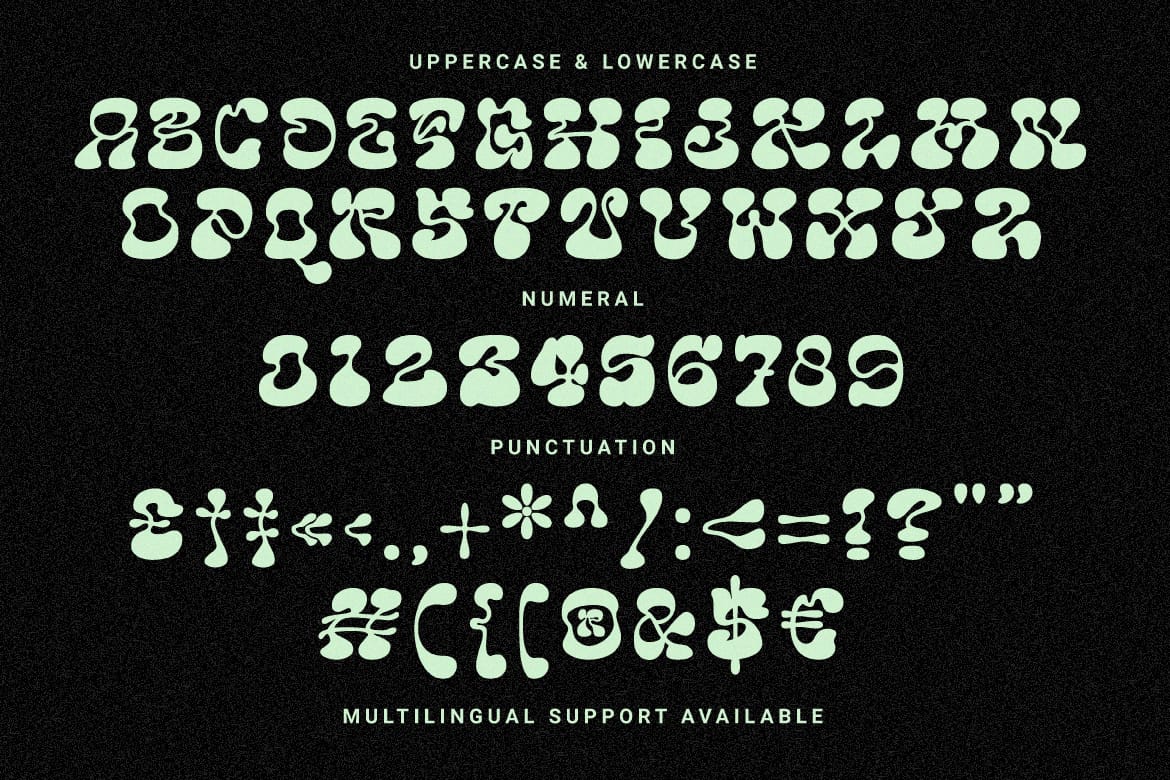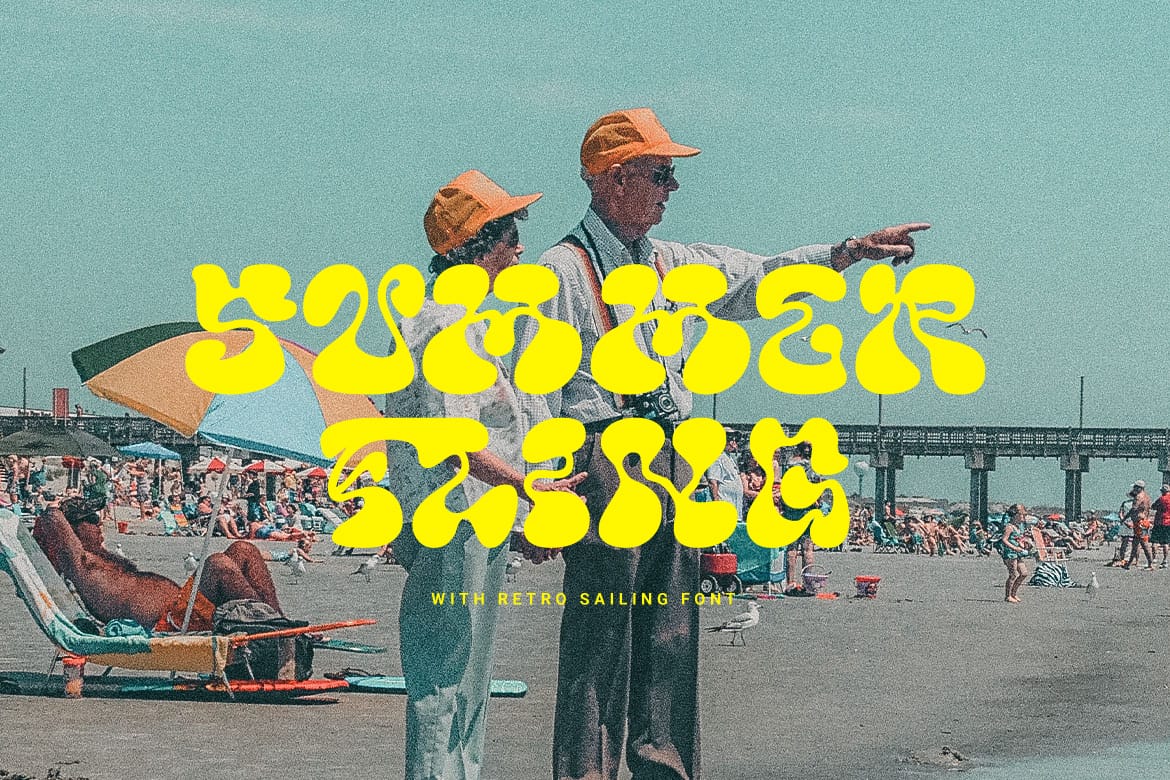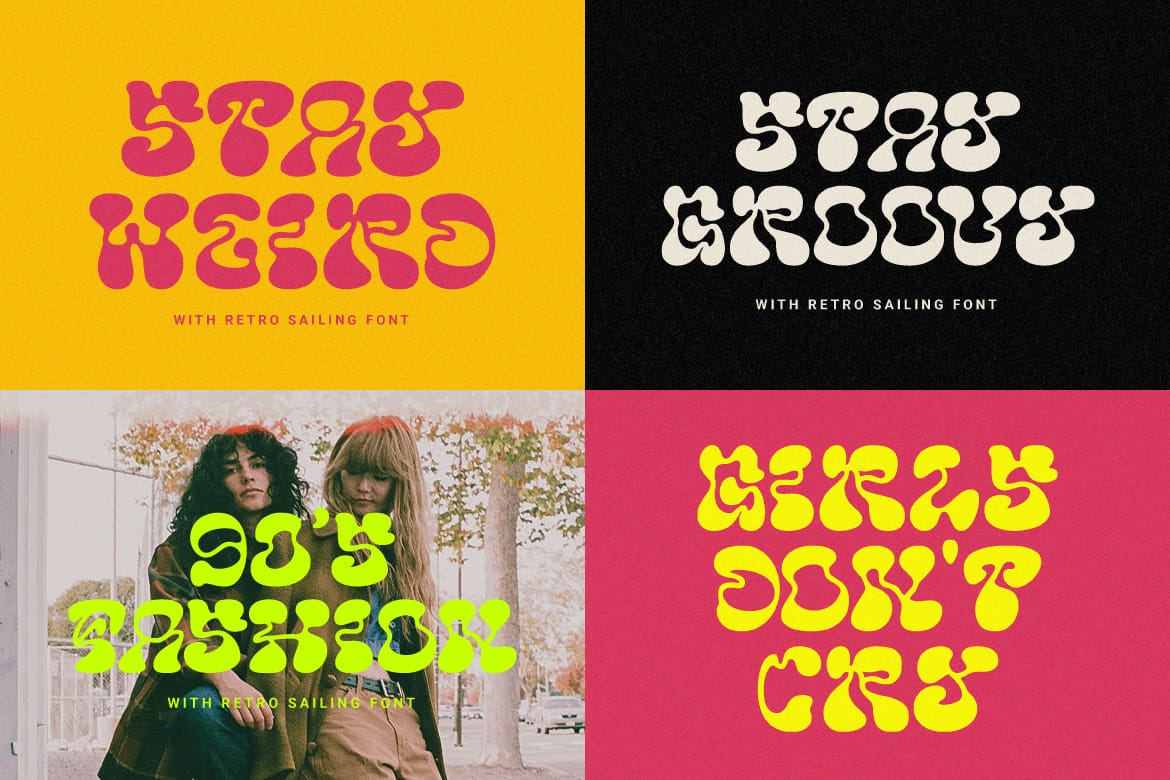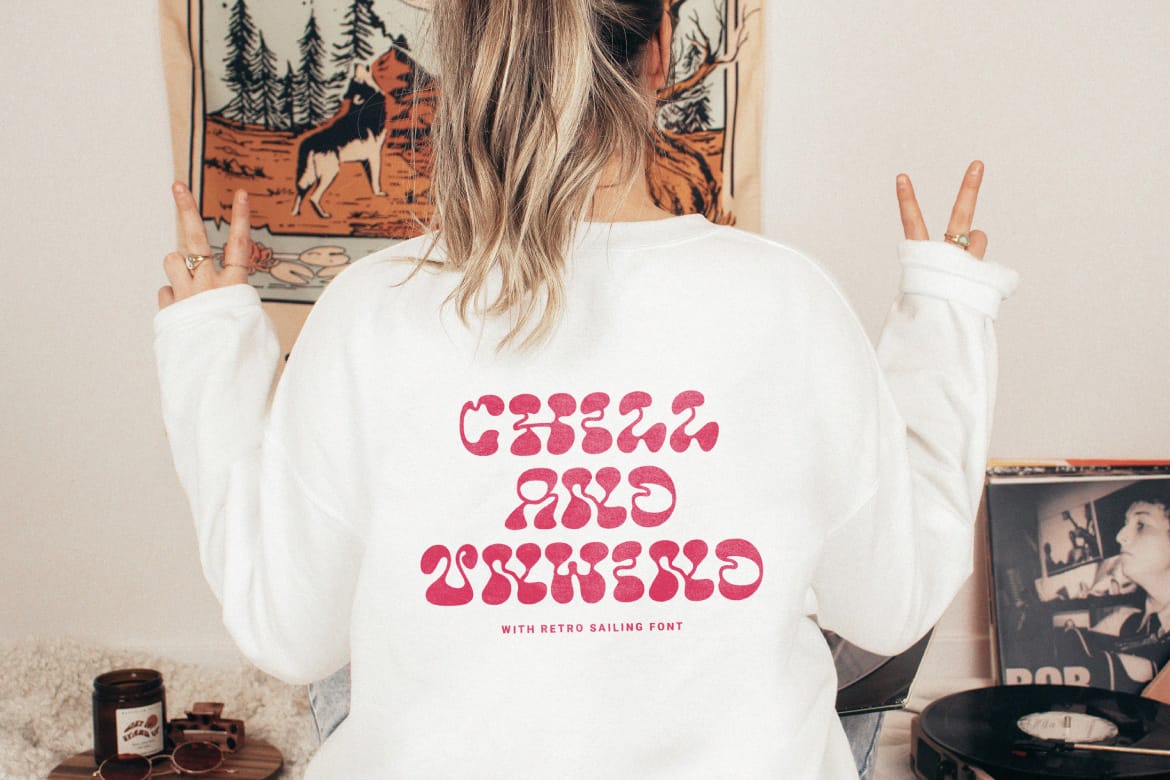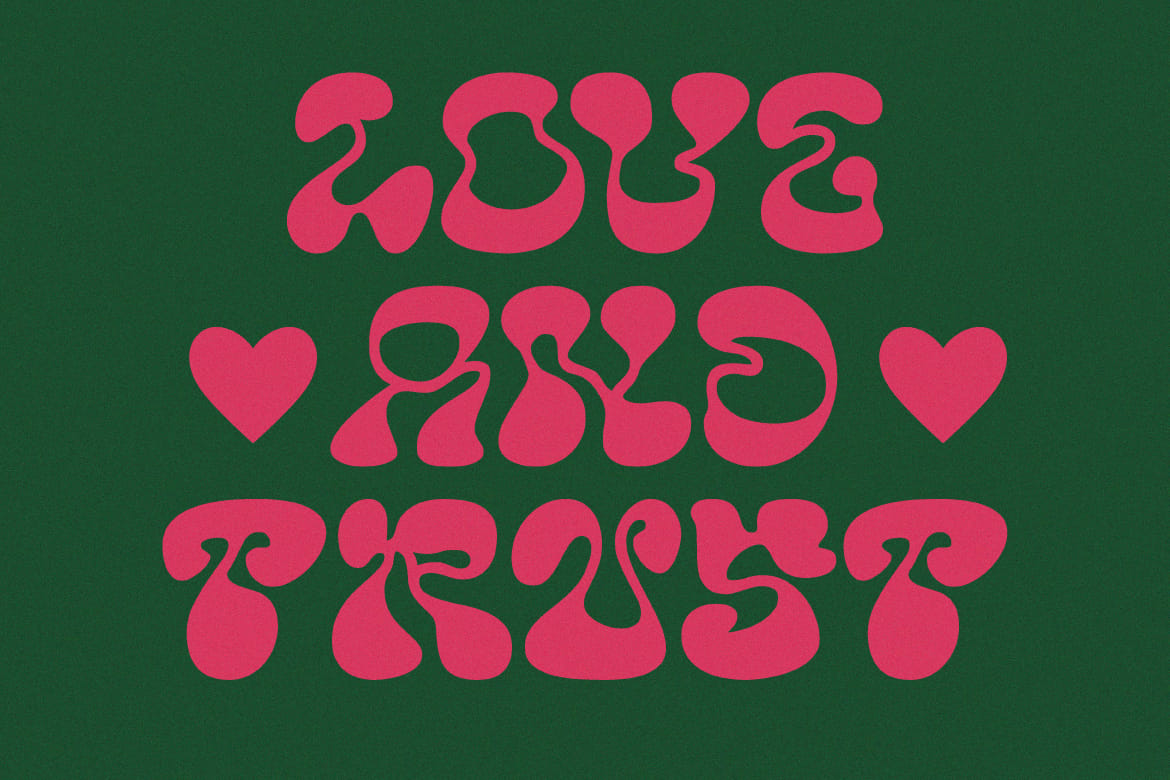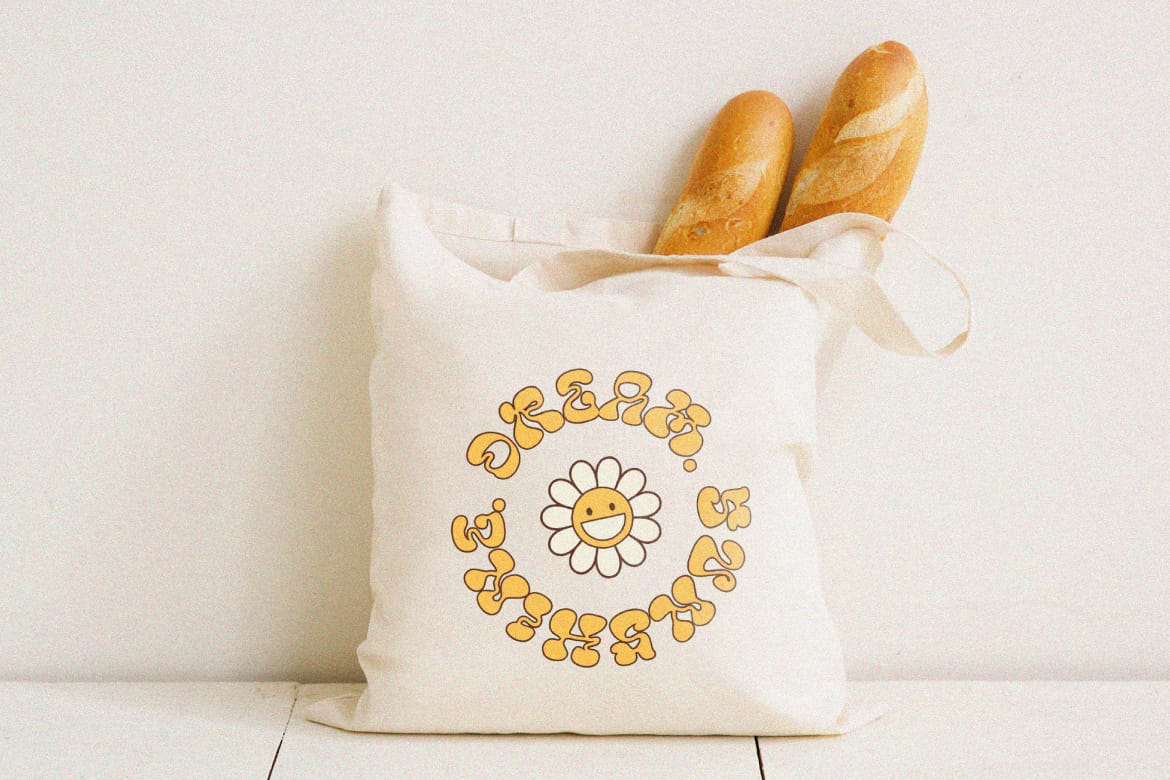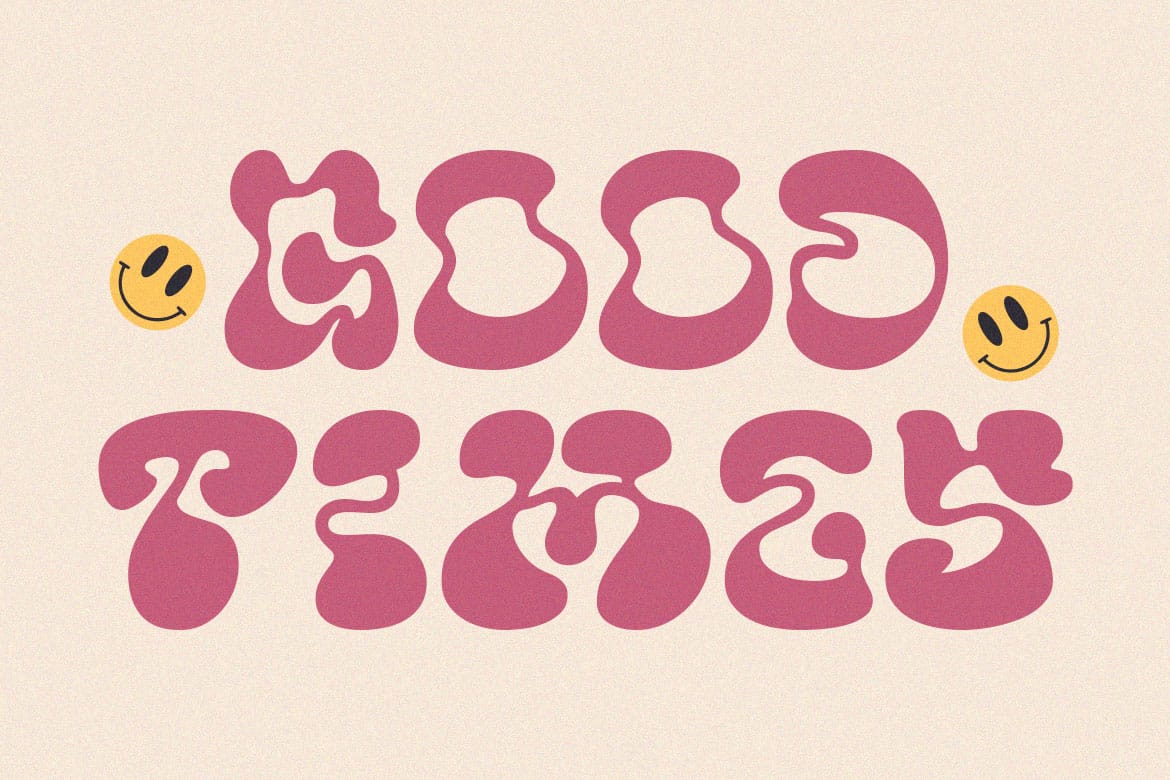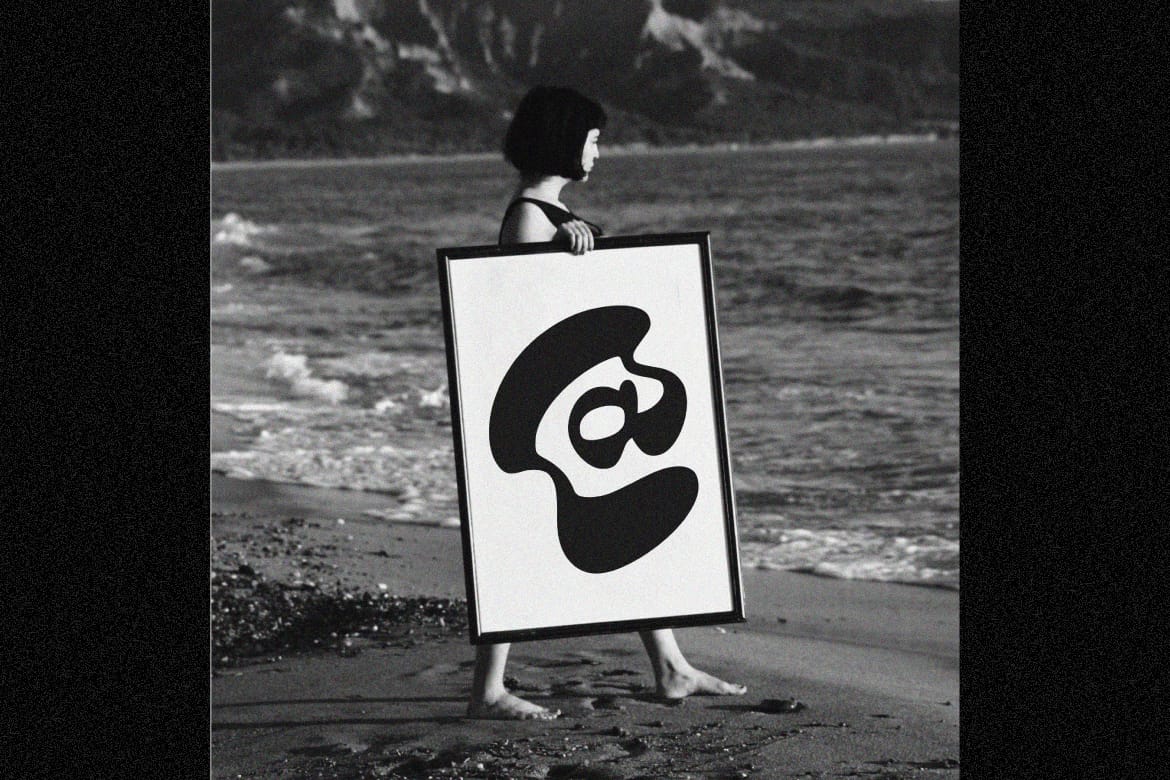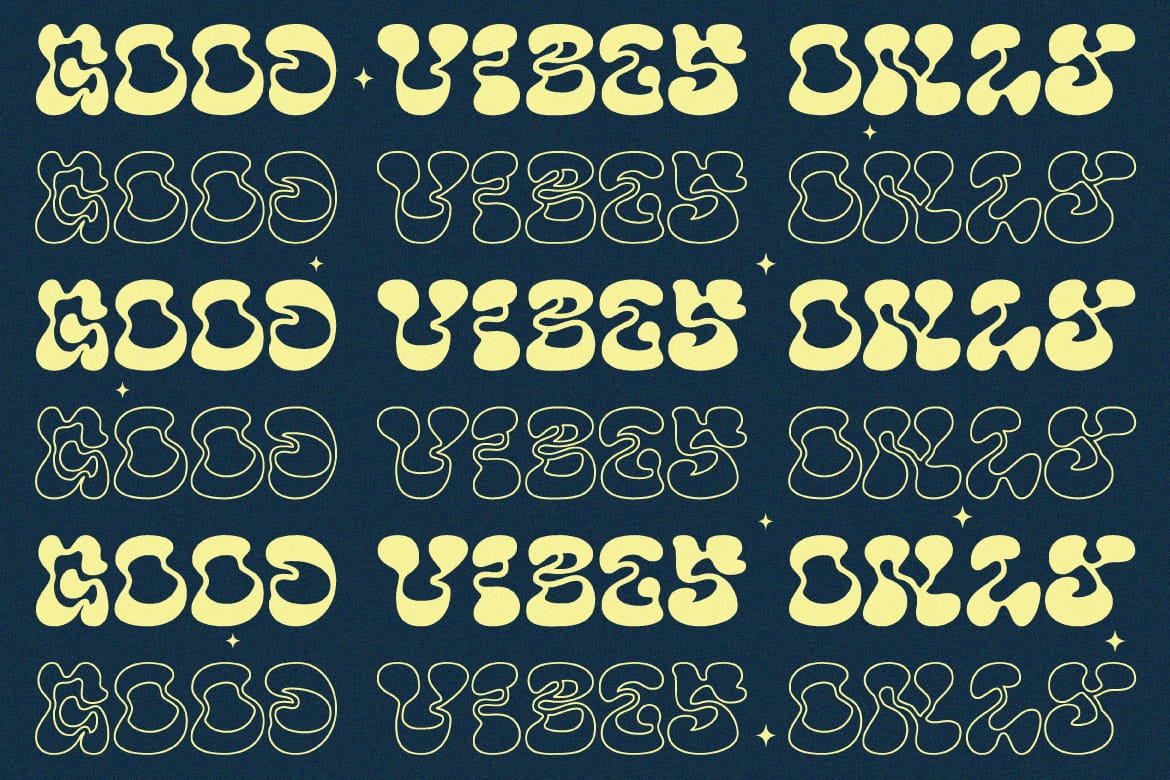
A whimsical style display font with a retro touch that clearly visualizes your designs. It is suitable for the design of merchandise, posters, covers and social media posts.
- Whimsical style display font